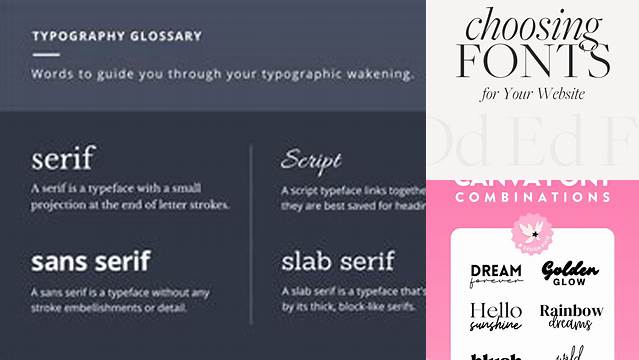
Font Combinations 2026: Ultimate Guide For Designers
Hey guys! Welcome to the ultimate guide on font combinations for 2026! In the ever-evolving world of design, typography plays a crucial role in conveying your message effectively and aesthetically. Choosing the right font combinations can make or break your project, whether it's a website, a marketing campaign, or a personal design endeavor. This article will dive deep into the latest trends, classic pairings, and innovative approaches to help you master the art of font combination.
The Importance of Font Combinations
Before we jump into specific examples, let's talk about why font combinations are so important. Think of fonts as the voice of your design. Each font has its own personality, tone, and style. When you combine fonts effectively, you create a visual hierarchy that guides the reader's eye, emphasizes key information, and enhances the overall aesthetic appeal. A well-chosen font combination can communicate professionalism, creativity, elegance, or any other desired feeling. Conversely, a poor font pairing can lead to a confusing, cluttered, and unprofessional look. So, getting your font combinations right is essential for making a strong impression and achieving your design goals.
1. Understanding Font Pairing Basics
Mastering font combinations starts with understanding the fundamentals. One of the first things to consider is contrast. You want to choose fonts that complement each other while also providing enough visual distinction. This contrast helps create a clear hierarchy and makes the text more readable. A common approach is to pair a serif font with a sans-serif font. Serifs, with their small decorative strokes, often evoke a sense of tradition and formality, while sans-serif fonts, which lack these strokes, tend to feel more modern and clean. Combining these two styles can strike a perfect balance. Another important aspect is considering the mood and tone of your project. Are you aiming for a classic, elegant look, or a modern, edgy feel? Your font combinations should align with the overall message you're trying to convey. This involves understanding the nuances of different font families and how they interact with each other. For instance, a bold, attention-grabbing headline font paired with a simple, readable body font can be a very effective strategy.
2. Classic Serif and Sans-Serif Combinations
One of the most reliable and time-tested approaches to font combinations is pairing a serif font with a sans-serif font. This combination offers a pleasing contrast and ensures readability. For example, pairing a classic serif like Times New Roman or Garamond with a clean sans-serif like Helvetica or Arial can create a sophisticated and professional look. These combinations are widely used in print media, websites, and other design projects because they are easy on the eyes and convey a sense of authority and trustworthiness. Another popular pairing is using a more decorative serif font, such as Playfair Display, for headings and a simple sans-serif like Open Sans for body text. This allows the headings to stand out while maintaining readability in the main content. The key is to ensure that the fonts complement each other without competing for attention. A well-chosen serif-sans-serif pairing can make your design look polished and professional, making it a go-to strategy for many designers.
3. Modern Font Pairings for 2026
As we look towards 2026, modern font combinations are leaning towards bolder and more expressive choices. Think about pairing geometric sans-serifs with humanist sans-serifs for a contemporary feel. A geometric sans-serif like Montserrat, with its clean, structured lines, can be beautifully paired with a humanist sans-serif like Lato, which offers a warmer, more approachable vibe. This creates a balance between modernity and readability. Another trend is using variable fonts, which offer a wide range of weights and styles within a single font family, providing incredible flexibility for designers. These can be paired with a contrasting font to add visual interest. Experimenting with different font weights within the same family is also a great way to create visual hierarchy. For instance, you might use a bold weight for headings and a regular weight for body text. The key to modern font combinations is to be bold and creative while still maintaining clarity and readability.
4. Monospace and Sans-Serif Pairings
Monospace fonts, with their fixed-width characters, offer a unique and distinctive look that can add character to your designs. Pairing a monospace font with a sans-serif can create a visually striking contrast. A popular approach is to use a monospace font like Courier New or Source Code Pro for headings or callouts and a clean sans-serif like Roboto or Open Sans for body text. This combination is often used in technical documentation, coding websites, and designs that need to convey a sense of precision and reliability. The monospace font adds a touch of retro coolness, while the sans-serif ensures the main content remains easy to read. When using monospace fonts, it’s important to use them sparingly, as too much monospace text can be difficult to read. However, when used strategically, a monospace and sans-serif pairing can add a unique and memorable touch to your designs.
5. The Power of Font Weight Combinations
One of the simplest yet most effective ways to create visual hierarchy and interest in your designs is by varying font weights. Using different weights within the same font family or in combination with a contrasting font can make a huge difference. For example, pairing a bold font like Montserrat Bold for headings with Montserrat Regular for body text provides a clear distinction and makes the headings stand out. Similarly, you can combine a light font weight with a heavier weight to create a sense of contrast and depth. This technique is particularly useful when you want to emphasize certain words or phrases. For instance, using a bold weight for keywords or subheadings can draw the reader's eye and highlight important information. When working with font combinations, don't underestimate the power of weight variations. It's a subtle but powerful tool for enhancing readability and visual appeal.
6. Font Combinations for Headlines and Body Text
When choosing font combinations, it’s crucial to consider the specific roles of the fonts in your design. Headlines and body text have different requirements, and your font choices should reflect this. Headlines need to be attention-grabbing and impactful, while body text needs to be easy to read for extended periods. A common strategy is to use a more decorative or expressive font for headlines and a simpler, more legible font for body text. For example, you might pair a bold serif like Playfair Display for headlines with a clean sans-serif like Open Sans for body text. This combination allows the headlines to stand out while ensuring the body text remains comfortable to read. Another approach is to use a sans-serif for headlines and a serif for body text, which can create a classic and professional look. The key is to ensure that the fonts complement each other and create a harmonious overall design. A well-chosen font combination for headlines and body text can significantly improve the readability and visual appeal of your content.
7. Pairing Fonts for Digital Interfaces
Designing for digital interfaces, such as websites and mobile apps, requires careful consideration of font combinations. Readability is paramount, as users will be viewing the text on screens of various sizes and resolutions. Sans-serif fonts are often preferred for digital interfaces due to their clean and modern appearance, but that doesn’t mean you can't incorporate serifs! Pairing a clear, legible sans-serif like Roboto or Open Sans with a slightly more stylized sans-serif or even a subtle serif can add a touch of personality without sacrificing readability. Consider the hierarchy of your content when selecting fonts for digital interfaces. Use different font sizes and weights to distinguish headings from body text and to highlight important information. Also, pay attention to line height and letter spacing, as these factors can significantly impact readability on screens. A well-chosen font combination for a digital interface should be both visually appealing and easy to read, creating a positive user experience.
8. Best Font Combinations for Web Design in 2026
For web design in 2026, the best font combinations will balance modern aesthetics with excellent readability. Expect to see more pairings that mix and match font styles to create unique visual identities. A popular trend is combining a bold, geometric sans-serif for headings with a more humanist sans-serif for body text, providing a contrast that's both eye-catching and comfortable to read. Another effective combination is using a serif font for headings to add a touch of elegance and tradition, paired with a clean sans-serif for body text to maintain a modern feel. Variable fonts will continue to play a significant role, offering designers the flexibility to fine-tune font weights and styles. When selecting font combinations for your website, consider the overall tone and message you want to convey. A professional website might benefit from classic pairings like a serif and sans-serif, while a creative website might opt for more experimental combinations. Ultimately, the best font combination for web design is one that enhances the user experience and reinforces your brand identity.
9. Font Combinations for Print Design
When it comes to print design, font combinations need to be carefully selected to ensure readability and visual appeal in a tangible format. Unlike digital design, print design allows for more nuanced details and subtleties in typography. Classic serif fonts like Garamond and Times New Roman are excellent choices for body text in print due to their high readability. Pairing these with a bolder, sans-serif font for headings can create a striking contrast. Another approach is to use a more decorative serif font for headings to add a touch of elegance, paired with a simpler serif font for body text to maintain readability. Consider the paper stock and printing method when choosing font combinations for print. Thinner paper may require fonts with thicker strokes to prevent them from appearing too faint, while glossy paper can handle more delicate fonts. Ultimately, the best font combination for print design is one that is both visually appealing and easy to read in the physical medium.
10. Creating Contrast with Font Pairings
Creating contrast is key to effective font combinations. Contrast helps establish a visual hierarchy, making it easier for readers to navigate and understand your content. There are several ways to achieve contrast in font pairings. One of the most common is to pair a serif font with a sans-serif font, as these two styles offer inherent visual differences. Another approach is to vary the font weights, using a bold font for headings and a lighter font for body text. You can also create contrast by using different font sizes, with larger sizes for headings and smaller sizes for body text. Another subtle technique is to vary the letter spacing or line height, which can impact the overall readability and visual rhythm of your design. When combining fonts, it’s important to ensure that the contrast is intentional and serves a purpose. Too little contrast can make the design feel flat and monotonous, while too much contrast can be jarring and distracting. The ideal font combination strikes a balance, creating a visually engaging and easy-to-read design.
11. Font Combinations for Branding
Font combinations play a crucial role in branding, as they contribute significantly to the overall visual identity of a brand. The fonts you choose should align with your brand's personality, values, and target audience. A professional and trustworthy brand might opt for a classic serif and sans-serif pairing, while a creative and innovative brand might choose more experimental font combinations. When selecting fonts for branding, consider how they will be used across various platforms, from websites and marketing materials to social media and business cards. Consistency is key to building brand recognition, so it’s important to establish a clear typographic style guide and stick to it. Your primary font pairing should be versatile enough to work in different contexts and sizes. Don’t be afraid to use font variations, such as different weights or styles within the same family, to add visual interest while maintaining consistency. The best font combination for branding is one that is both visually appealing and effectively communicates your brand's unique identity.
12. Best Google Font Combinations for 2026
Google Fonts offers a vast library of free fonts, making it an excellent resource for designers. For 2026, some of the best Google Font font combinations include pairings that balance readability with modern aesthetics. A popular combination is Roboto, a clean and versatile sans-serif, paired with Merriweather, a readable serif font that adds a touch of elegance. Another great pairing is Open Sans, a humanist sans-serif that works well for body text, combined with Montserrat, a geometric sans-serif that’s perfect for headings. Lato, a friendly sans-serif, pairs beautifully with Raleway, a more slender sans-serif that’s ideal for headlines. When choosing Google Fonts, consider the overall tone and message of your design. For a professional look, stick to classic serif and sans-serif pairings. For a more modern feel, experiment with geometric and humanist sans-serifs. Remember to check the font’s readability at different sizes and weights, and ensure that the font combination enhances the user experience. Google Fonts provides a wealth of options, so take the time to explore and find the perfect pairings for your projects.
13. Font Combinations for Logos
Choosing the right font combinations for a logo is critical, as the logo is often the first visual impression a brand makes. The fonts should be legible, memorable, and reflective of the brand's personality. Simplicity is often key for logos, so a single well-chosen font or a simple pairing of two fonts can be more effective than complex combinations. Consider the balance between the fonts and how they complement each other. A common approach is to use a bolder, more distinctive font for the brand name and a simpler font for the tagline or subtext. Sans-serif fonts are often favored for logos due to their clean and modern appearance, but serif fonts can also work well, especially for brands that want to convey a sense of tradition or elegance. When experimenting with font combinations for logos, make sure the fonts work well together at various sizes, from small favicon sizes to large billboard displays. The best font combination for a logo is one that is both visually appealing and effectively communicates the brand's identity.
14. Serif and Serif Font Pairings
While serif and sans-serif pairings are a classic choice, combining two serif fonts can create a sophisticated and elegant look. The key to successful serif and serif font combinations is to choose fonts that offer enough contrast while still complementing each other. One popular approach is to pair a display serif font, such as Playfair Display or Lora, with a more traditional text serif font, like Garamond or Merriweather. This allows the headings to stand out while maintaining readability in the body text. Another technique is to combine a serif font with strong serifs and a serif font with delicate serifs to create visual interest. Pay attention to the x-height of the fonts, as fonts with similar x-heights tend to pair well together. The x-height is the height of the lowercase letters, and matching this can create a more cohesive look. When using serif and serif font combinations, ensure that the overall design remains legible and visually balanced. This pairing style can add a touch of classic elegance to your projects, making them stand out in a subtle yet sophisticated way.
15. Sans-Serif and Sans-Serif Font Pairings
Pairing sans-serif fonts together can create a modern and clean aesthetic. To effectively combine sans-serifs, it’s important to choose fonts that offer enough contrast to avoid a monotonous look. One approach is to pair a geometric sans-serif, like Montserrat or Futura, with a humanist sans-serif, such as Open Sans or Lato. Geometric sans-serifs have a more structured and minimalist feel, while humanist sans-serifs have a warmer and more approachable vibe. Another successful font combination is pairing a bold sans-serif for headings with a lighter sans-serif for body text, creating a clear visual hierarchy. Variable fonts, which offer a range of weights and styles within a single font family, are also excellent for sans-serif pairings. They allow you to create subtle variations within the same font, adding depth and interest to your design. When selecting sans-serif and sans-serif font combinations, consider the overall tone and message of your design. This pairing style is versatile and can be used in a variety of contexts, from websites and apps to marketing materials and print designs. The key is to ensure that the fonts complement each other and maintain readability.
16. Fonts for E-commerce Websites in 2026
E-commerce websites require font combinations that are both visually appealing and highly functional. The primary goal is to create a seamless shopping experience, so readability and clarity are paramount. Sans-serif fonts are often the preferred choice for e-commerce sites due to their clean and modern appearance. Pairing a clear and legible sans-serif like Roboto or Open Sans for body text with a bolder sans-serif like Montserrat or Lato for headings can create a balanced and engaging design. Another effective combination is using a serif font for product titles or headings to add a touch of sophistication, paired with a sans-serif for product descriptions and other body text. Ensure that the font combination is consistent across all pages of the website, including product listings, checkout pages, and informational content. Consider the overall brand aesthetic when choosing fonts for your e-commerce site. The fonts should align with your brand's personality and target audience. The best font combination for an e-commerce website is one that enhances the user experience, making it easy for customers to browse products, read descriptions, and make purchases.
17. Font Combinations for Blogs
For blogs, font combinations play a crucial role in creating an engaging and readable experience for readers. The primary focus should be on readability, as blog posts often involve long-form content. Pairing a serif font for body text with a sans-serif font for headings is a classic and effective approach. Serif fonts like Merriweather, Garamond, and Georgia are excellent choices for body text due to their readability and traditional feel. Sans-serif fonts like Open Sans, Montserrat, and Lato work well for headings, providing a clear contrast and a modern touch. Another popular technique is to use a slightly bolder or more decorative font for subheadings to break up the text and guide the reader. Consider the overall tone and style of your blog when choosing font combinations. A professional blog might opt for a more classic pairing, while a creative blog might experiment with more unique and expressive fonts. The key is to ensure that the fonts complement each other and create a visually appealing and easy-to-read design. The best font combination for a blog is one that keeps readers engaged and encourages them to spend more time on your site.
18. Font Combinations for Presentations
Creating effective presentations requires careful selection of font combinations to ensure your message is clear, engaging, and visually appealing. Readability is crucial, as your audience needs to be able to easily read the text on the slides from a distance. Sans-serif fonts are often preferred for presentations due to their clean and modern appearance. Pairing a bold sans-serif for headings with a lighter sans-serif for body text can create a clear hierarchy and make the slides easy to follow. Another approach is to use a serif font for headings to add a touch of elegance, paired with a sans-serif for body text to maintain readability. Limit the number of fonts you use in a presentation to no more than two or three to avoid visual clutter. Use different font sizes and weights to highlight key points and create emphasis. When choosing font combinations, consider the overall tone and style of your presentation. A formal presentation might benefit from classic pairings, while a more creative presentation might allow for more experimental choices. The best font combination for a presentation is one that enhances your message and keeps your audience engaged.
19. Fonts for Social Media Graphics
Social media graphics demand font combinations that grab attention and effectively convey your message in a visually appealing way. Given the fast-paced nature of social media, your fonts need to be legible even at small sizes and on various devices. Pairing a bold and eye-catching font for headlines or key messages with a simpler font for supporting text is a common strategy. Sans-serif fonts are often favored for social media due to their clean and modern look, but serif fonts can also be used effectively, particularly for adding a touch of elegance or tradition. Consider the overall branding of your social media presence when choosing fonts. Consistency is key to building brand recognition, so use the same font combination across all your graphics. Experiment with different font weights, sizes, and styles to create visual interest and hierarchy. Pay attention to contrast and ensure that your text stands out against the background. The best font combination for social media graphics is one that is both visually engaging and easy to read, helping your content capture attention and resonate with your audience.
20. Combining Fonts with Different Personalities
The art of font combinations extends beyond simply pairing serifs and sans-serifs; it's about understanding the personality of each font and how they interact. Some fonts exude professionalism and authority, while others convey creativity and playfulness. Pairing fonts with contrasting personalities can create dynamic and engaging designs. For example, a classic and elegant serif font like Garamond can be paired with a modern and geometric sans-serif like Futura to strike a balance between tradition and innovation. A friendly and approachable sans-serif like Open Sans can be paired with a more assertive and bold sans-serif like Montserrat to create a sense of contrast and emphasis. When combining fonts with different personalities, consider the overall message and tone of your design. The fonts should complement each other and work together to convey your intended message. The best font combination is one that reflects the personality of your brand or project, creating a cohesive and memorable visual identity.
21. Font Combinations for Mobile Apps
Mobile apps require font combinations that prioritize readability and clarity on small screens. Given the limited screen real estate, fonts need to be legible even at smaller sizes. Sans-serif fonts are often the preferred choice for mobile apps due to their clean and modern appearance. Pairing a clear and simple sans-serif like Roboto or Open Sans for body text with a slightly bolder sans-serif like Montserrat or Lato for headings can create a balanced and user-friendly design. Consider the overall user experience when choosing fonts for your mobile app. The fonts should be easy on the eyes, even for extended periods of use. Use different font sizes and weights to create a clear hierarchy and guide users through the app's interface. Pay attention to line height and letter spacing to ensure optimal readability. When experimenting with font combinations, test them on various devices and screen sizes to ensure they render well. The best font combination for a mobile app is one that enhances the user experience, making it easy for users to navigate and interact with the app's content.
22. Best Practices for Pairing Display Fonts
Display fonts are designed to be eye-catching and attention-grabbing, making them ideal for headings, titles, and logos. However, pairing display fonts effectively requires careful consideration. The key is to use them sparingly and to pair them with a more neutral and readable font for body text. Avoid using two highly decorative display fonts together, as this can create visual clutter and make your design feel overwhelming. Instead, pair a display font with a simple and legible sans-serif or serif font. For example, a bold and script-like display font like Pacifico can be paired with a clean sans-serif like Open Sans. A more elegant and classic display font like Playfair Display can be paired with a traditional serif font like Garamond. When choosing font combinations involving display fonts, ensure that the fonts complement each other and create a harmonious overall design. The display font should draw attention without overpowering the rest of the content. The best practice for pairing display fonts is to use them strategically to enhance visual interest while maintaining readability.
23. Font Combinations for Creative Projects
Creative projects often call for more experimental and unique font combinations. This is an opportunity to break away from traditional pairings and explore fonts that express personality and style. Don't be afraid to mix and match different font styles, weights, and sizes to create visual interest. Pairing a handwritten or script font with a bold sans-serif can add a playful and personal touch. Combining two contrasting serif fonts, such as a classic serif with a more modern serif, can create a sophisticated and elegant look. When experimenting with font combinations for creative projects, it’s important to ensure that the fonts still work well together and maintain readability. The fonts should complement each other and enhance the overall design. Consider the mood and tone of your project when choosing fonts. A fun and whimsical project might benefit from playful and quirky fonts, while a more serious and artistic project might call for more refined and elegant fonts. The best font combination for creative projects is one that reflects your unique vision and helps you achieve your creative goals.
24. Fonts That Go Well With Bold Typography
Bold typography can make a strong statement and draw attention to key messages. However, it’s important to choose font combinations that complement bold fonts and prevent them from overpowering the design. Pairing a bold font with a lighter weight or simpler font for body text is a common strategy. This creates a clear hierarchy and ensures that the bold font stands out without overwhelming the rest of the content. Sans-serif fonts often work well with bold typography due to their clean and modern appearance. A bold sans-serif like Montserrat or Lato can be paired with a lighter sans-serif like Open Sans or Roboto. Serif fonts can also be used effectively with bold typography, particularly for adding a touch of elegance or tradition. A bold serif like Playfair Display can be paired with a more traditional serif like Garamond or Merriweather. When choosing font combinations for bold typography, consider the overall tone and message of your design. The fonts should complement each other and work together to convey your intended message. The best font combination for bold typography is one that enhances the impact of the bold font while maintaining readability and visual balance.
25. Legibility in Font Combinations
Legibility is a critical factor to consider when choosing font combinations. The fonts you select should be easy to read, especially for body text and long-form content. Factors that affect legibility include font size, weight, letter spacing, and line height. Sans-serif fonts are often favored for body text in digital designs due to their clean and modern appearance, but serif fonts can also be highly legible, particularly for print designs. When pairing fonts, ensure that the body text font is easy to read at various sizes and on different devices. Avoid using highly decorative or stylized fonts for body text, as these can be difficult to read for extended periods. Consider the contrast between the fonts you choose. Pairing a bold font with a lighter weight font can improve legibility by creating a clear visual hierarchy. Test your font combinations with different readers and gather feedback on their readability. The best font combination is one that prioritizes legibility, ensuring that your message is clear and accessible to your audience.
26. Font Combinations for Minimalism
Minimalist designs emphasize simplicity and clean lines, making font combinations a crucial element in creating a visually effective composition. The best approach is often to choose a limited number of fonts—sometimes even just one—and use variations in weight and size to create hierarchy. Sans-serif fonts are particularly well-suited for minimalist designs due to their clean and modern appearance. Pairing two different weights of the same sans-serif font, such as a light and a bold version of Open Sans or Roboto, can create a subtle yet effective contrast. If you choose to use two different fonts, opt for a classic pairing like a simple serif for headings and a clean sans-serif for body text. Avoid overly decorative or script fonts, as they can detract from the minimalist aesthetic. Pay attention to letter spacing and line height to ensure readability. The best font combination for minimalism is one that complements the design's simplicity and enhances its overall clean and uncluttered feel.
27. How to Test Your Font Combinations
Before finalizing your font combinations, it's essential to test them to ensure they work well in various contexts. Testing helps you identify any potential issues with readability, visual balance, or overall aesthetics. Start by testing your fonts at different sizes and weights to see how they perform in headlines, body text, and captions. View your font combinations on different devices and screen sizes, as fonts can render differently on various displays. Consider the color combinations you’ll be using, as text color can impact readability. Print out samples of your font combinations to see how they look in a physical format, particularly if your design will be used in print materials. Gather feedback from others on your font combinations. Ask for their opinions on readability, visual appeal, and overall effectiveness. Use online tools and resources to compare different fonts and see how they pair together. The best approach to testing your font combinations is to be thorough and consider all potential use cases, ensuring that your fonts enhance your design and communicate your message effectively.
28. Font Psychology and Its Role in Font Pairing
Font psychology plays a significant role in how your audience perceives your message. Each font conveys a certain feeling or personality, so understanding font psychology can help you make informed font combinations. Serif fonts, with their traditional and formal appearance, often evoke feelings of trust, authority, and sophistication. Sans-serif fonts, with their clean and modern lines, tend to convey a sense of simplicity, clarity, and innovation. Script fonts can add a touch of elegance, creativity, or personality, but they should be used sparingly to maintain readability. Decorative fonts can be eye-catching and unique but can also be difficult to read if overused. When pairing fonts, consider the emotions and associations you want to evoke. For example, a professional website might benefit from font combinations that convey trust and reliability, while a creative project might call for fonts that express personality and style. The best approach is to choose fonts that align with your brand’s message and resonate with your target audience.
29. Tools and Resources for Font Combinations
Fortunately, numerous tools and resources are available to help you discover and experiment with font combinations. Websites like FontPair, Google Fonts, and Adobe Fonts offer font pairing suggestions and allow you to preview fonts together. FontPair specifically focuses on Google Fonts, providing curated pairings that work well together. Adobe Fonts offers a vast library of high-quality fonts and integrated font pairing suggestions within Adobe Creative Cloud. Online tools like Canva and Figma include font pairing features that make it easy to experiment with different font combinations within your design projects. Font blogs and articles can provide inspiration and insights into current typography trends and best practices. Additionally, paying attention to the typography used by successful brands and designers can offer valuable insights. The best approach is to explore a variety of resources and tools to find the perfect font combinations for your projects.
30. The Future of Font Combinations
Looking ahead, the future of font combinations is likely to be shaped by several key trends and technologies. Variable fonts, which allow for dynamic adjustments to font weight, width, and other characteristics, will continue to gain popularity, offering designers greater flexibility and control over typography. AI-powered tools may emerge to help designers automatically generate optimal font combinations based on specific design goals and brand aesthetics. The increasing focus on web accessibility will drive the development of font pairings that prioritize readability and inclusivity. We may also see a resurgence of unique and expressive fonts as designers seek to create more distinctive visual identities. The best approach is to stay informed about these trends and experiment with new technologies and techniques, allowing you to create innovative and effective font combinations that push the boundaries of typography.